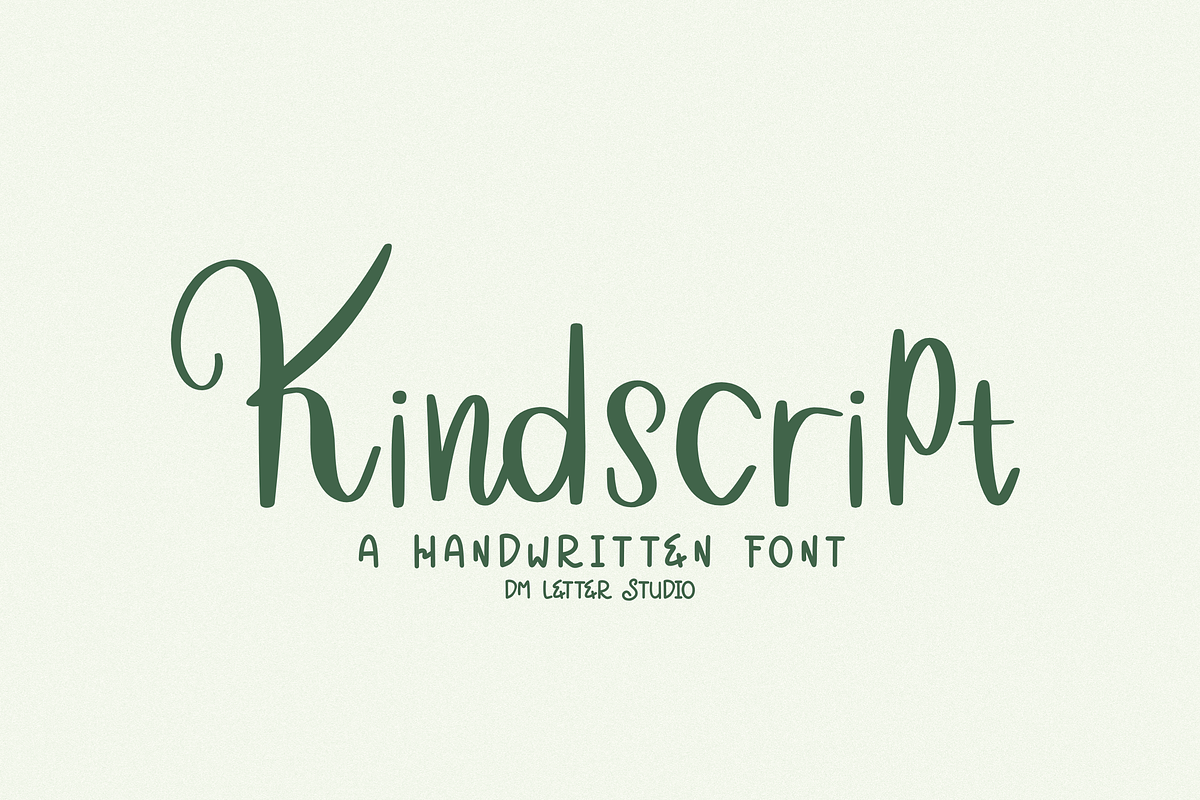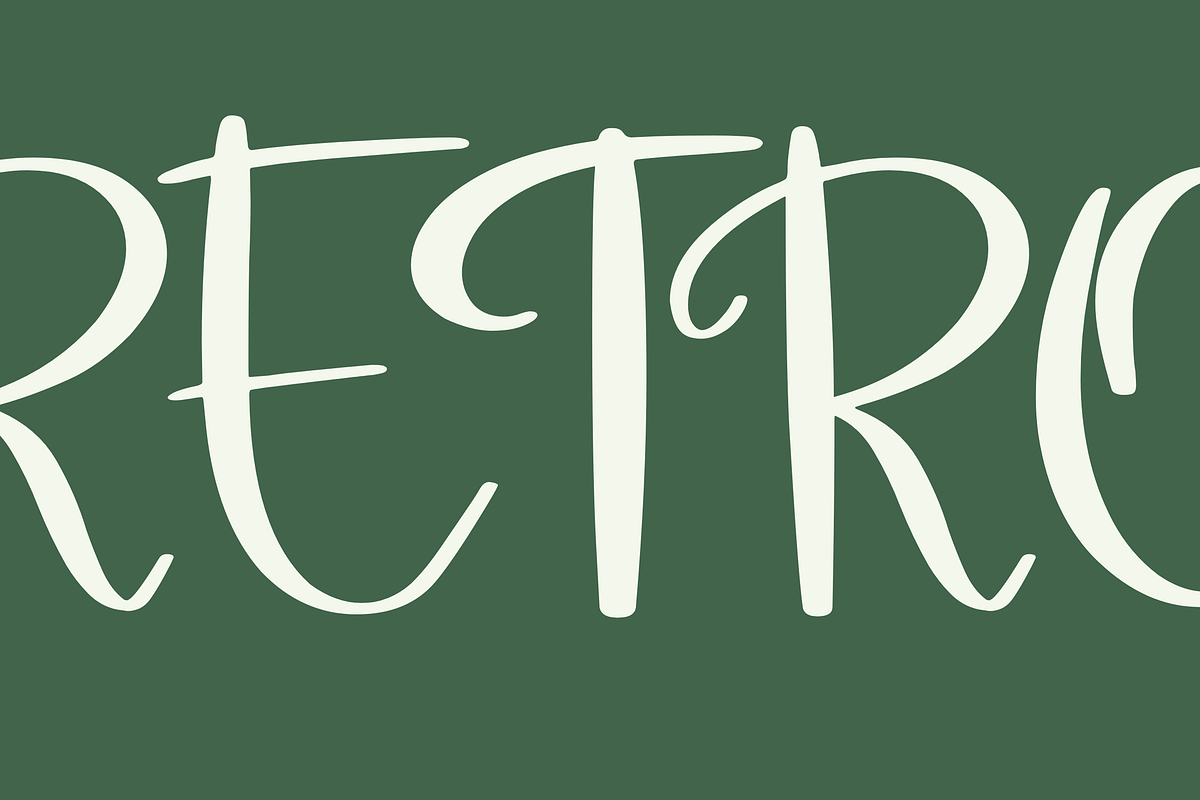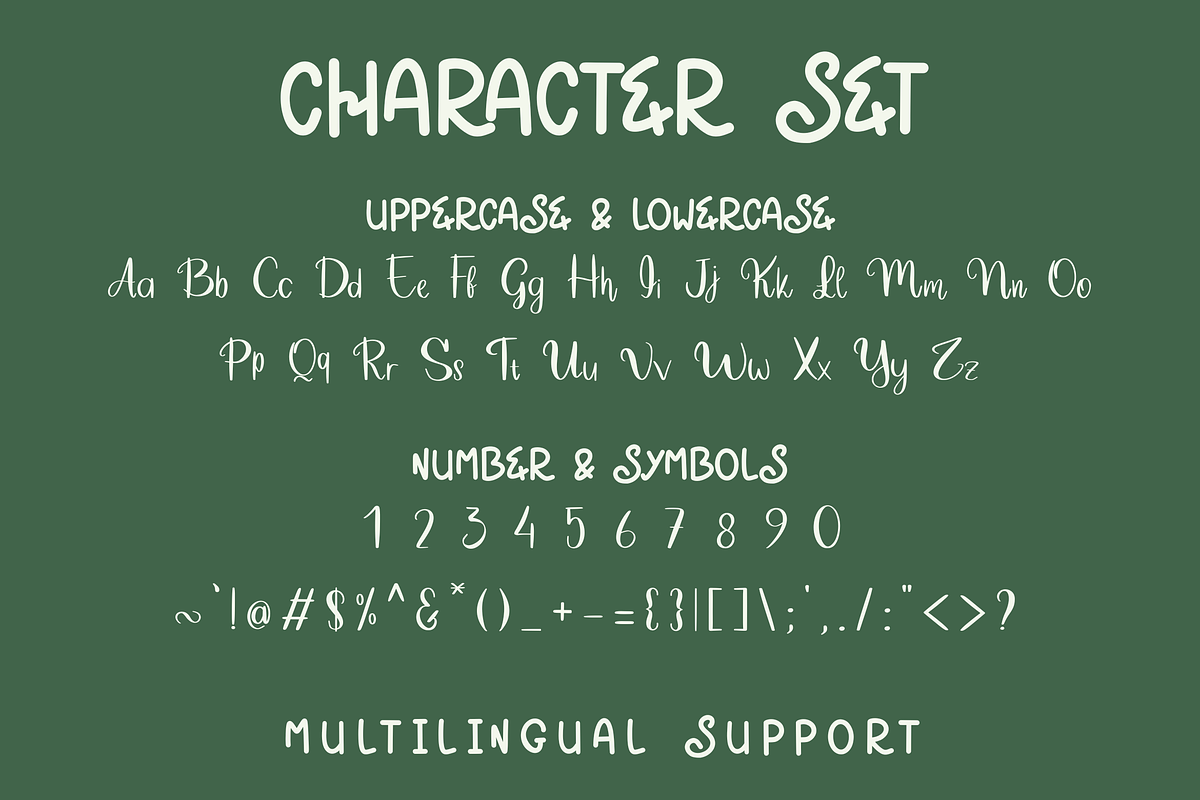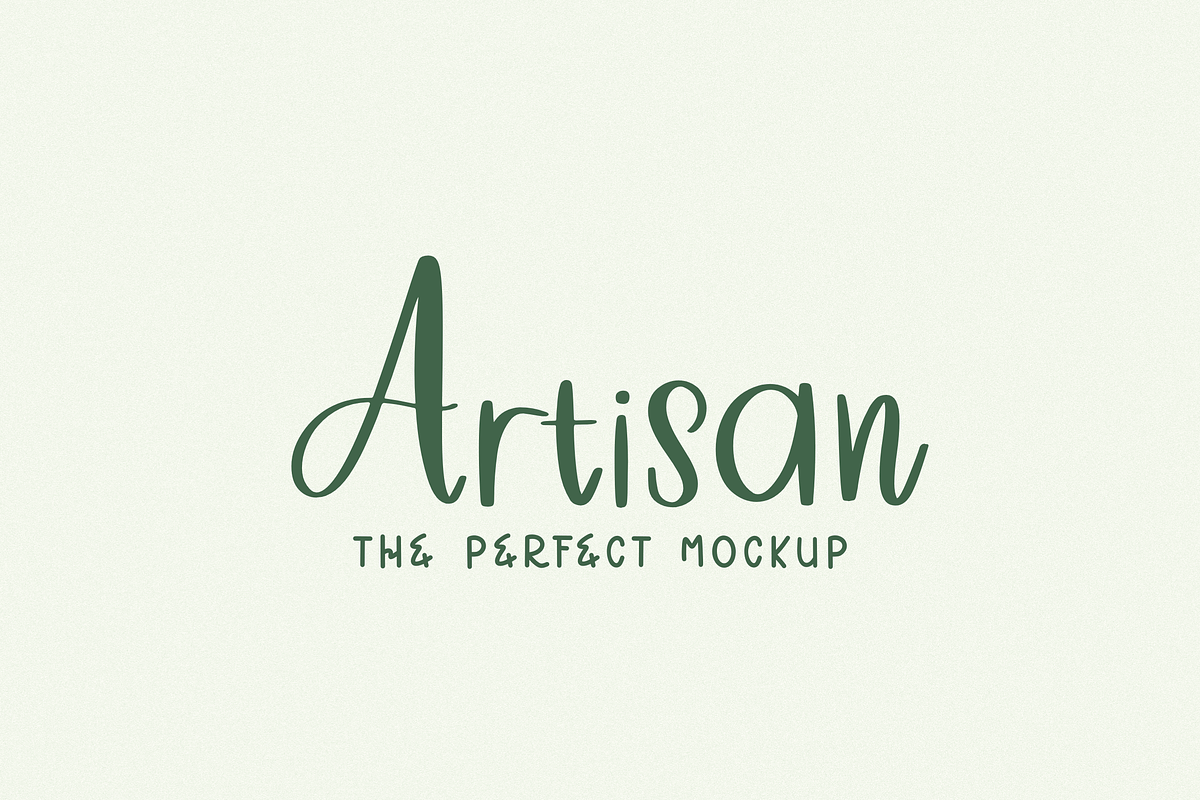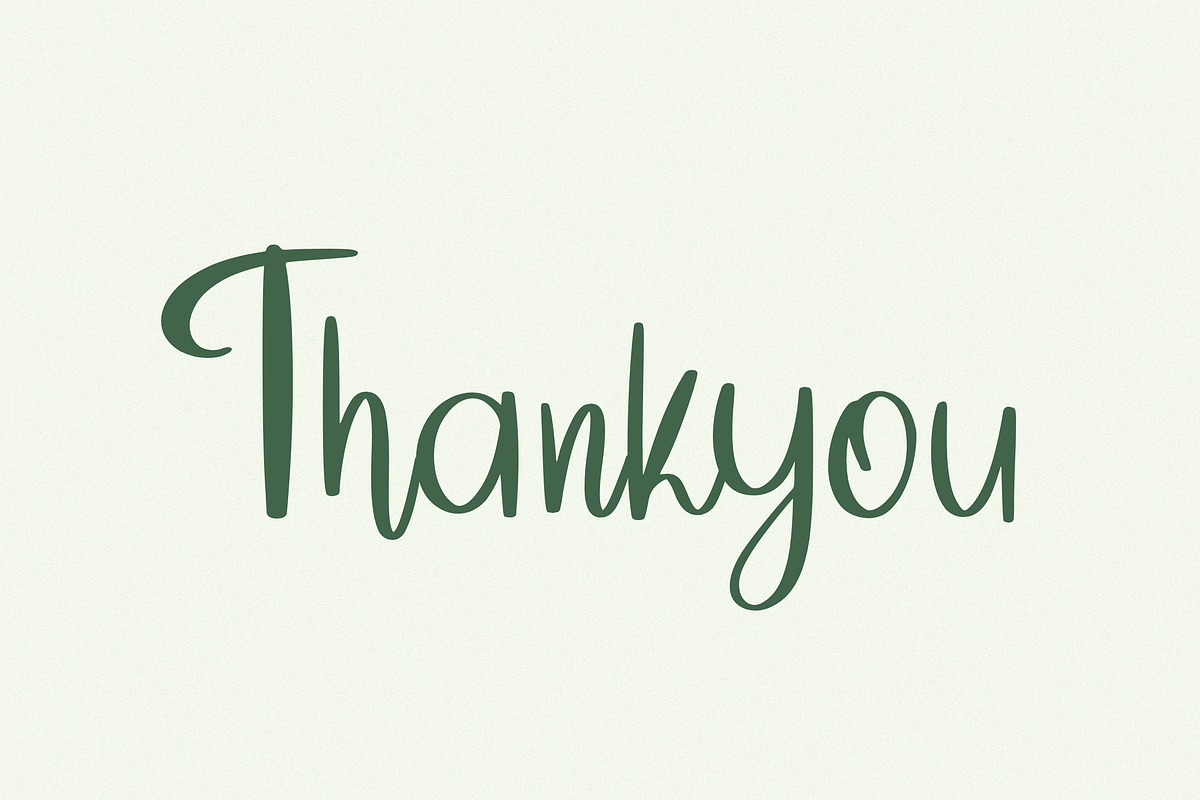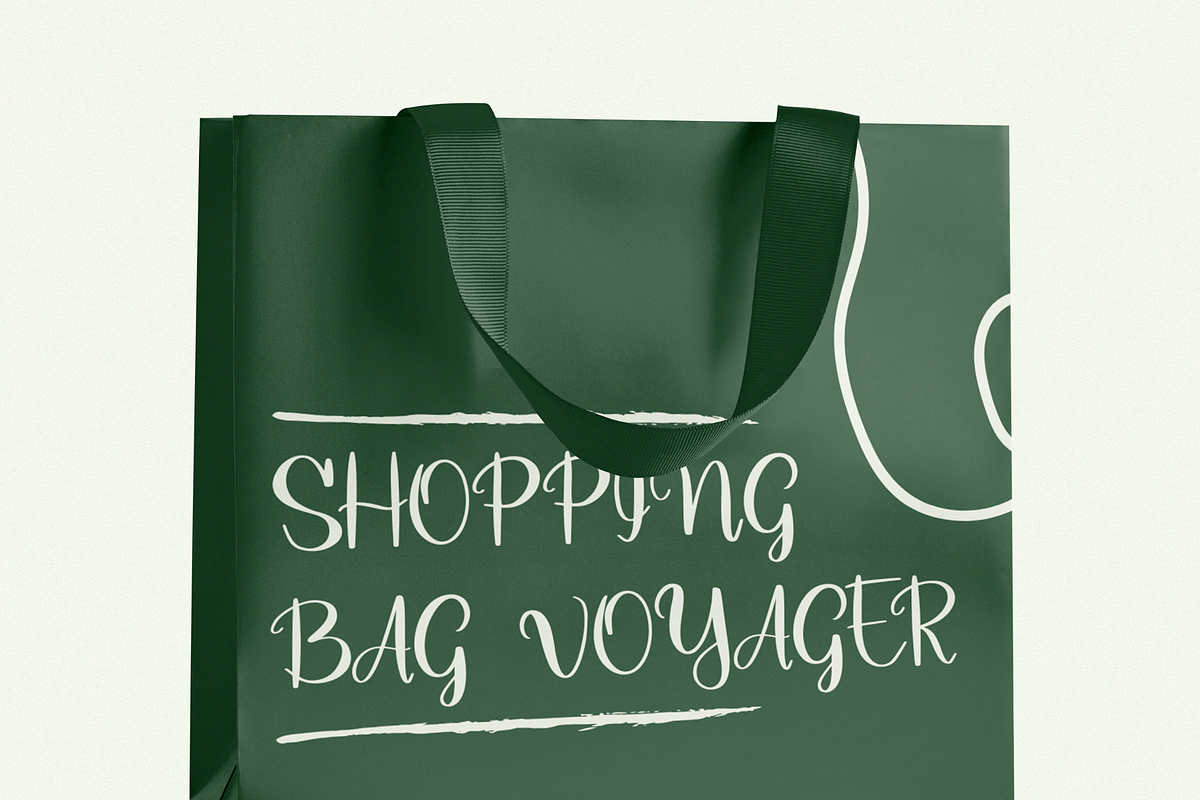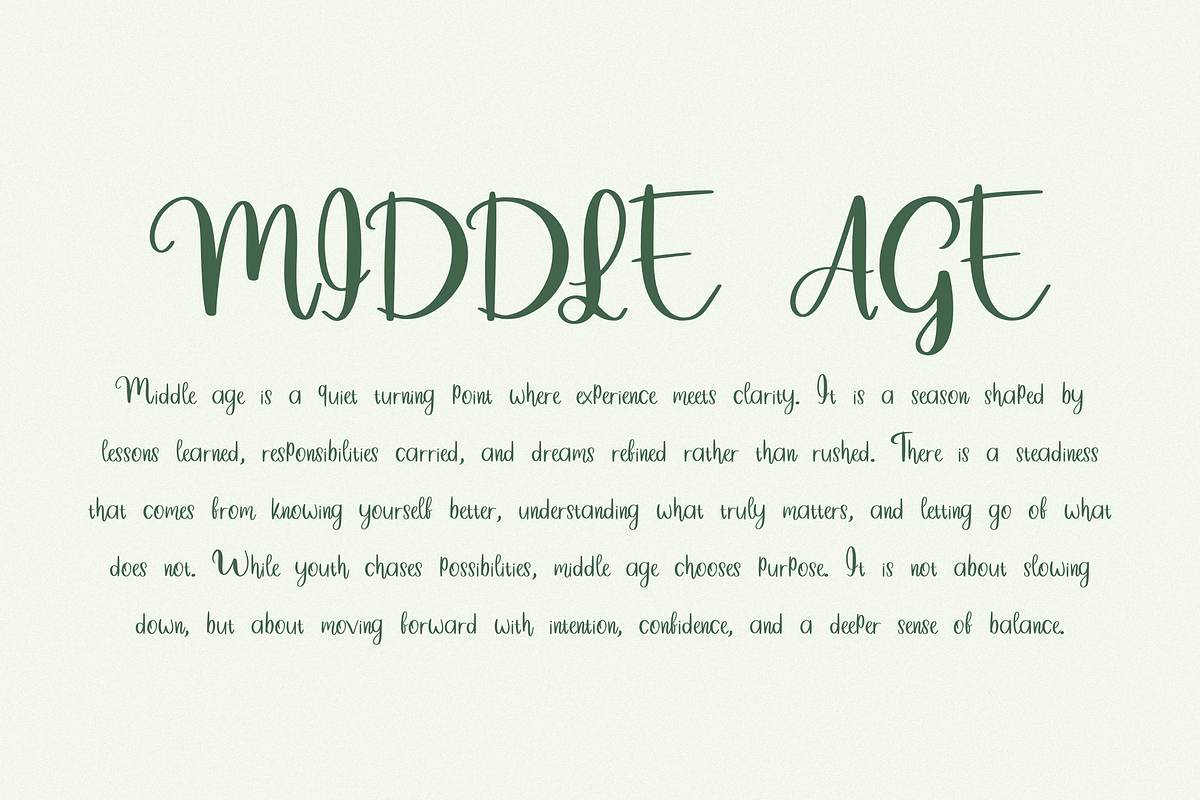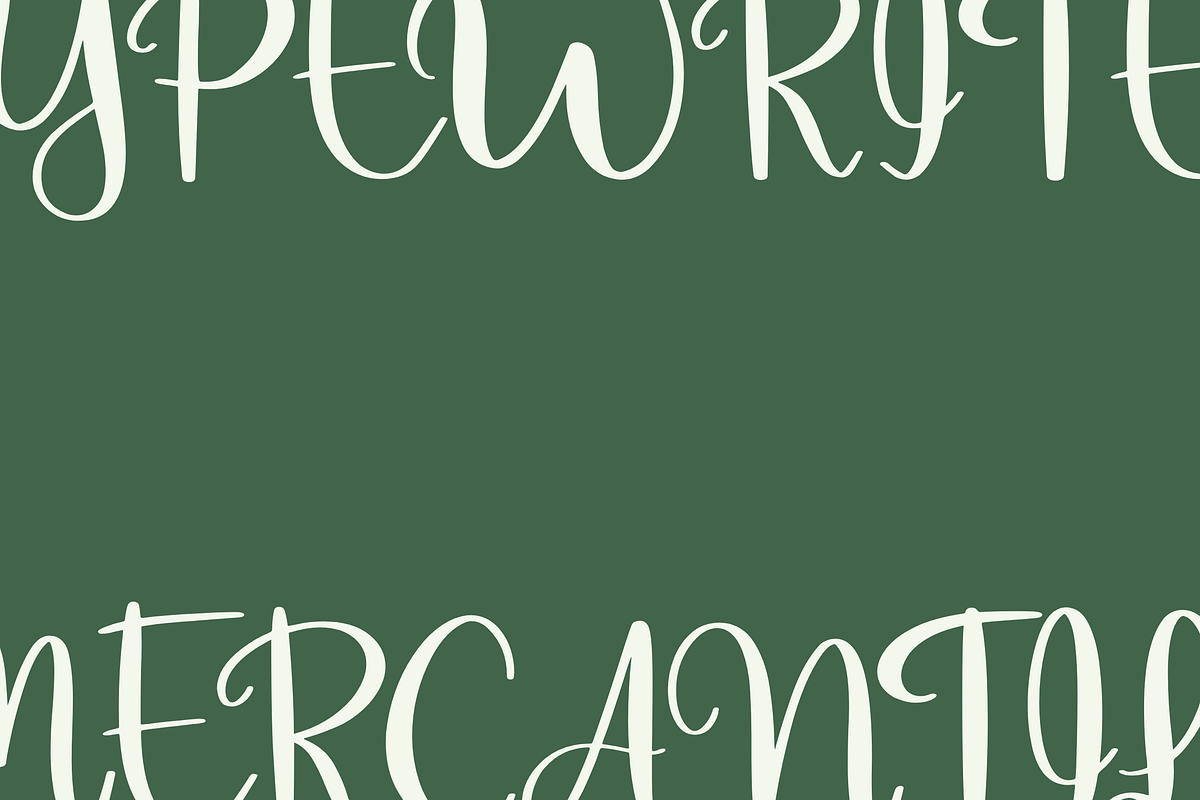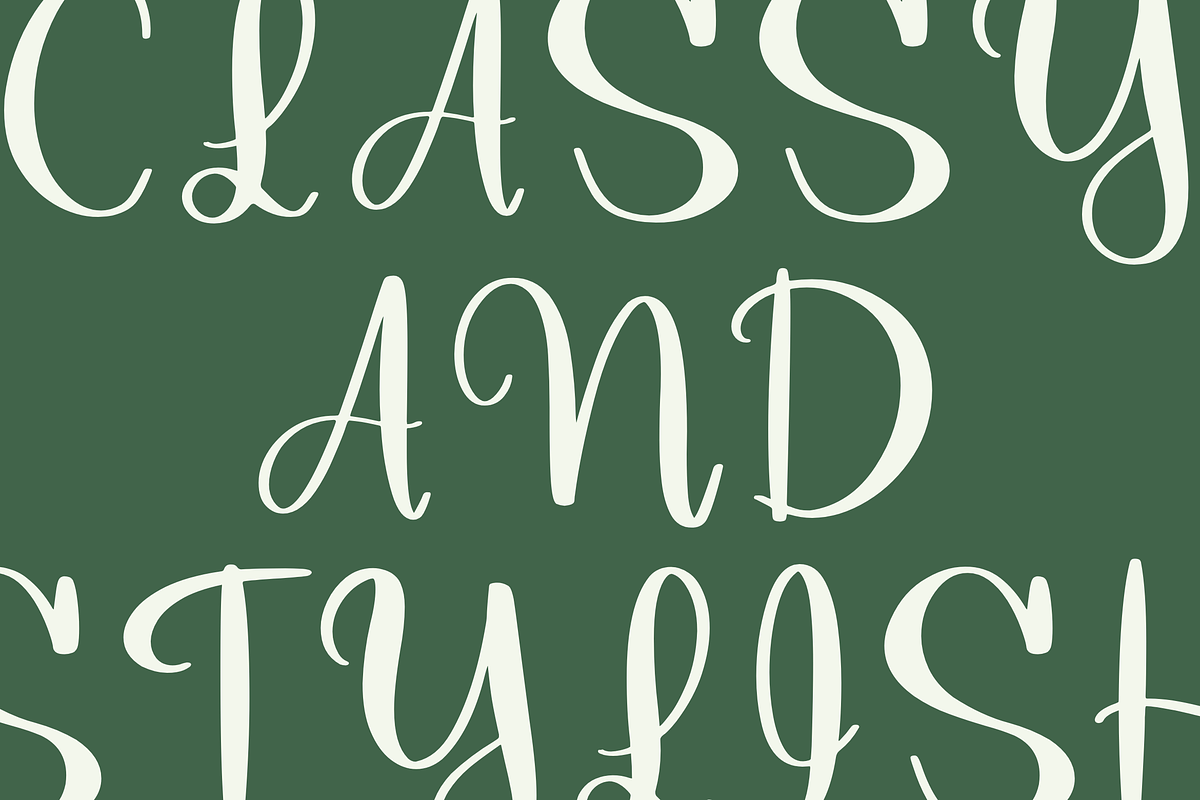
Kindscript
Meet Kindscript, the Beautiful Handwritten Font
Kindscript is a beautiful handwritten font with soft curves and a natural, flowing rhythm. The strokes feel warm and genuine, like thoughtful handwriting written with care. It blends elegance and friendliness, making it perfect for both romantic and everyday creative projects. Use Kindscript for invitations, branding, packaging, social media graphics, greeting cards, and lifestyle designs. As a result, your typography feels heartfelt, graceful, and effortlessly charming.
Fast layouts with the Kindscript Font
Start with brand names or short phrases to highlight the smooth flow. After that, pair Kindscript with a clean serif or minimal sans serif for supporting text. Because the style is elegant and soft, it works beautifully on light backgrounds and subtle color palettes. In addition, try slightly increasing line spacing for a more airy, premium look. Finally, save palettes like blush and ivory, sage and cream, navy and beige, or charcoal and soft gold for cohesive design sets.
Creative uses and quick wins
- Wedding invitations and save-the-date cards
- Boutique logos and packaging labels
- Social media quotes and lifestyle posts
- Greeting cards, planners, and handmade product tags
Design tips for Kindscript
Use Kindscript for headlines, signatures, or accent text rather than long paragraphs. Also, give it enough breathing room so the flowing connections stay readable. For print, export at 300 DPI to maintain smooth curves. For digital use, scale slightly larger so strokes remain crisp on mobile screens. Finally, keep effects minimal and let the natural beauty stand out.